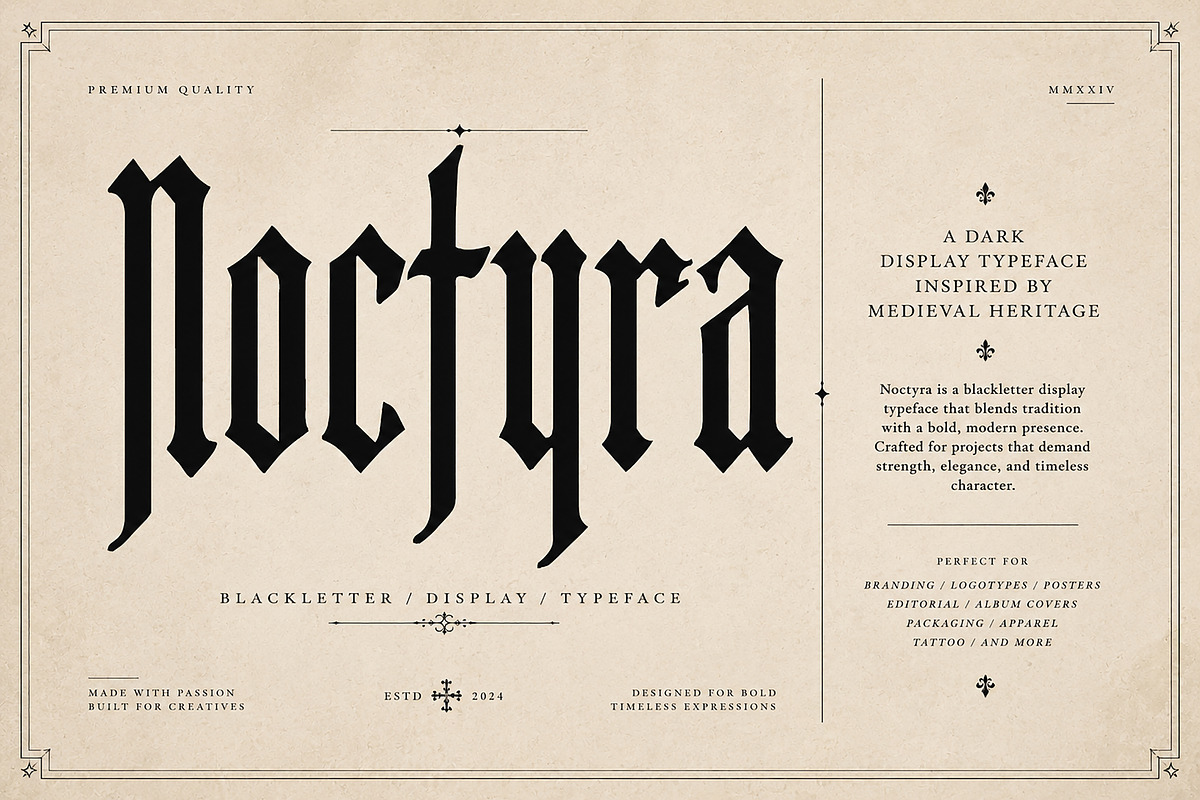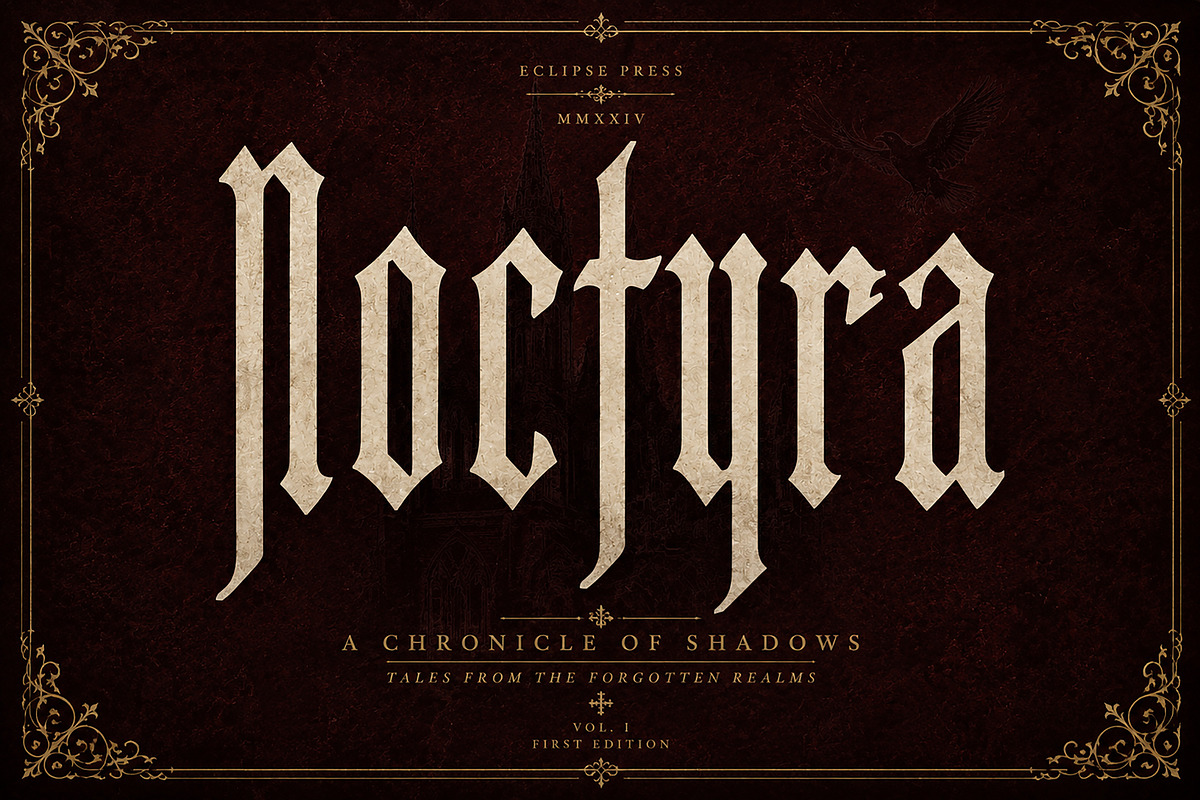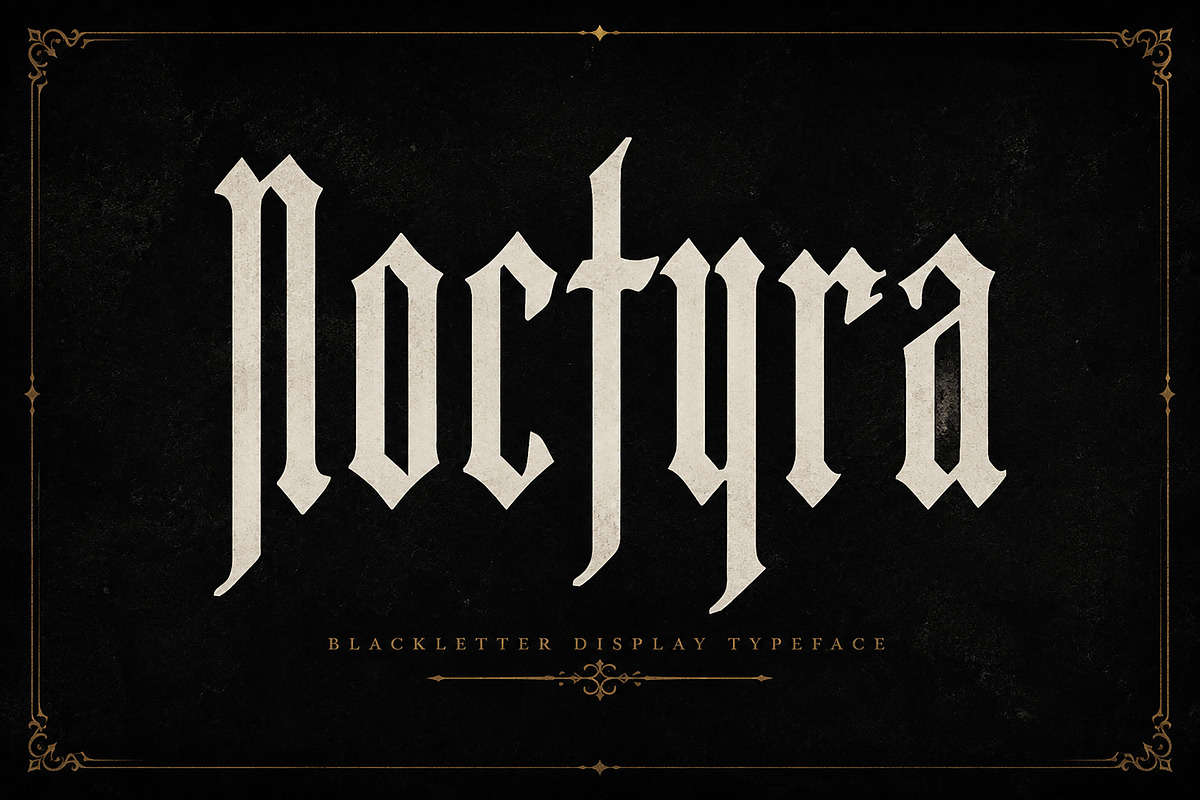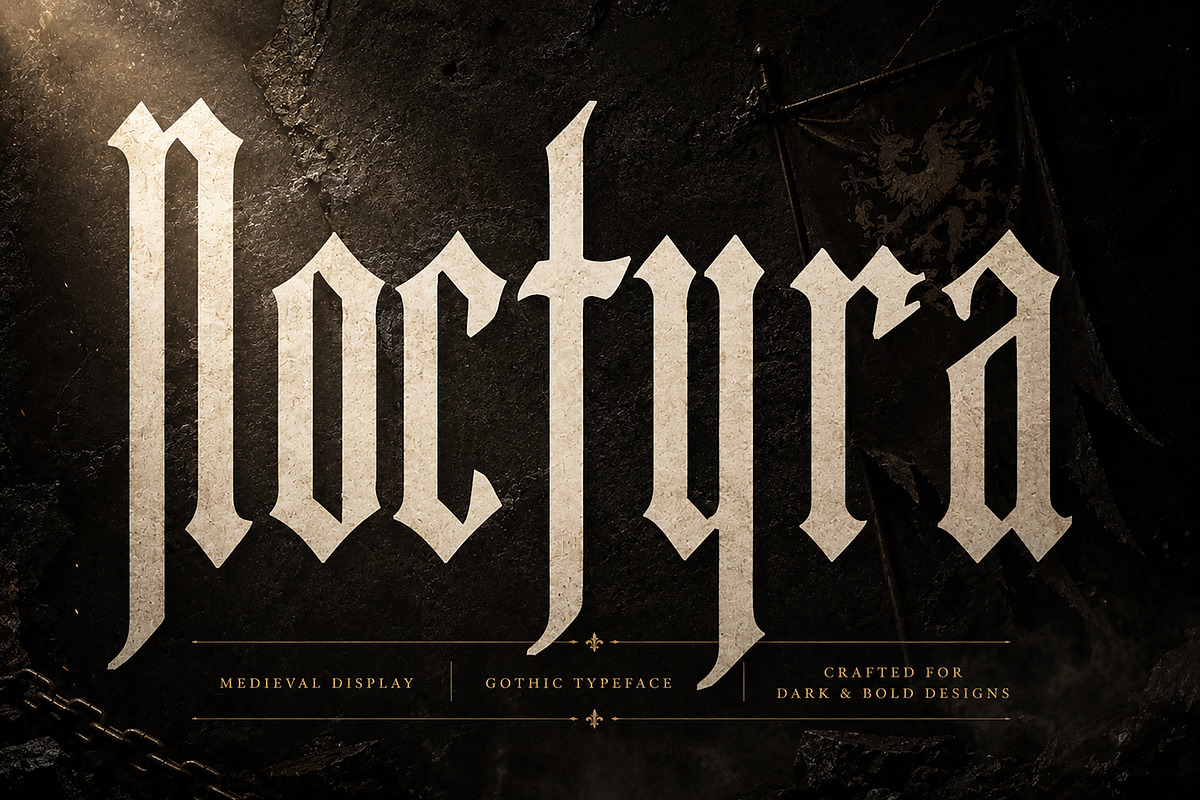
Noctyra - Blackletter
Bold Blackletter Typography for Dark, Medieval & Timeless Designs.
Noctyra is a bold and atmospheric Blackletter Display Typeface inspired by medieval lettering, gothic aesthetics, and timeless old-world typography.
With its sharp, dramatic letterforms and distinctive gothic character, Noctyra is designed to create an immediate visual impact in both classic and contemporary designs. Its strong silhouette makes it especially effective for large headlines, titles, logos, posters, covers, and other display-focused projects.
Whether you're creating a dark editorial layout, a medieval-inspired brand identity, a book or album cover, or a bold poster design, Noctyra brings a powerful and sophisticated gothic presence to your work.
Gothic & Medieval Branding
Logos & Logotypes
Posters & Wall Art
Book & Album Covers
Editorial Design
Apparel & Merchandise
Tattoo-Inspired Artwork
Event & Promotional Graphics
Headlines & Display Typography
Dark Luxury & Alternative Branding
Bold Blackletter / Gothic Display Style
Distinctive Medieval-Inspired Letterforms
Strong & Dramatic Visual Presence
Ideal for Large Display Text
Suitable for Print & Digital Design
Great for Dark, Vintage & Luxury Aesthetics
Font Name: Noctyra
Font Type: Blackletter / Gothic Display Typeface